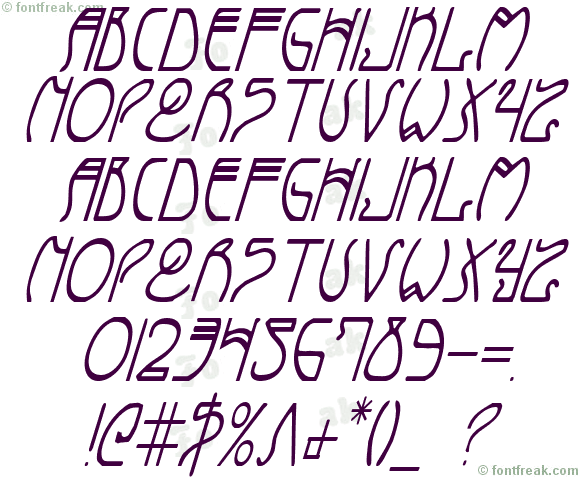
Coyote Deco Italic
About Coyote Deco Italic
Coyote Deco Italic, designed by Daniel Zadorozny in 2007, is a striking display font that falls within the decorative category. This font showcases an elegant italic style characterized by its unique blend of bold, condensed strokes and expansive letterforms. The visual characteristics of Coyote Deco Italic include a moderate stroke weight that offers a balanced contrast, making it eye-catching while remaining highly readable. The italic slant adds a dynamic flair, while the spacing between characters is thoughtfully designed to enhance legibility, making it an excellent choice for various creative applications.
This font is particularly well-suited for projects that require a touch of sophistication and flair. It is ideal for wedding invitations, where elegance is paramount, as well as for movie posters that demand attention and drama. Additionally, Coyote Deco Italic can elevate restaurant menus, giving them a modern yet classic feel that attracts diners. Its distinctive style also lends itself beautifully to branding materials, helping small business owners create a memorable identity.
Target audiences for this font include graphic designers seeking to add a unique touch to their projects, small business owners looking to enhance their branding, and content creators who want to make their online presence stand out. The versatility of Coyote Deco Italic makes it a valuable asset in any designer's toolkit.